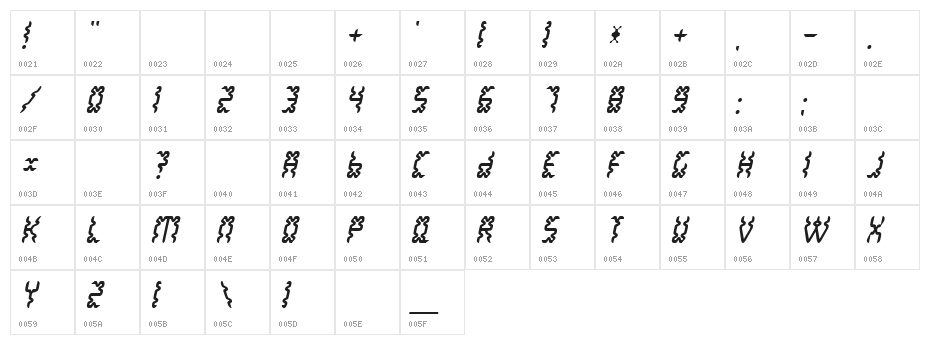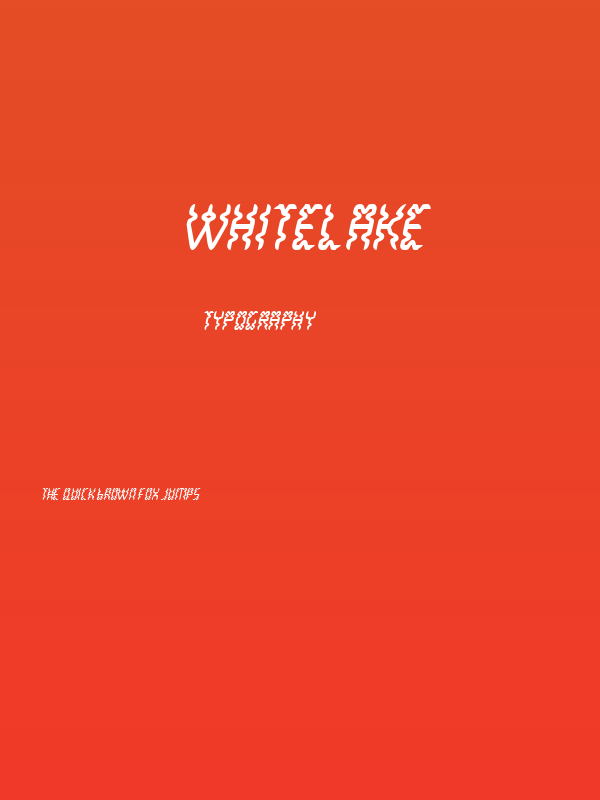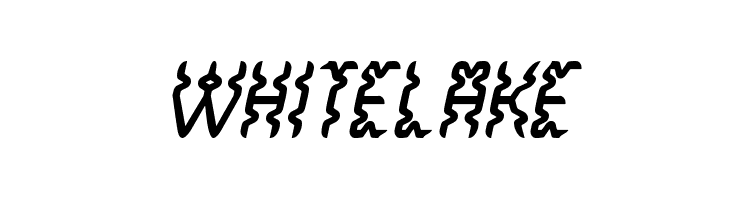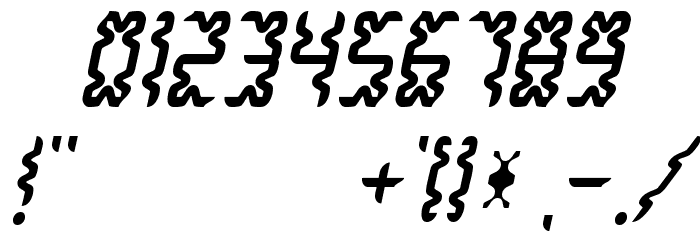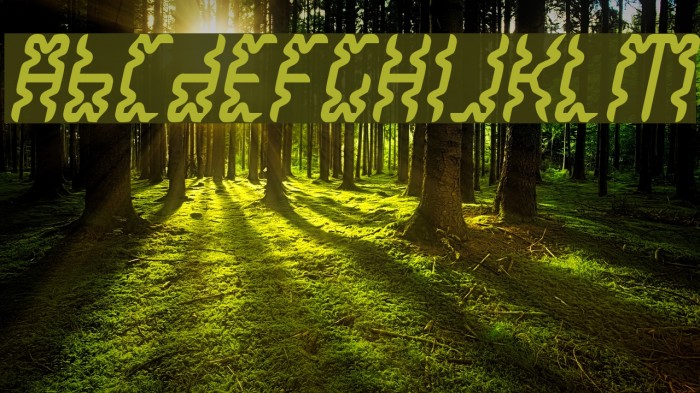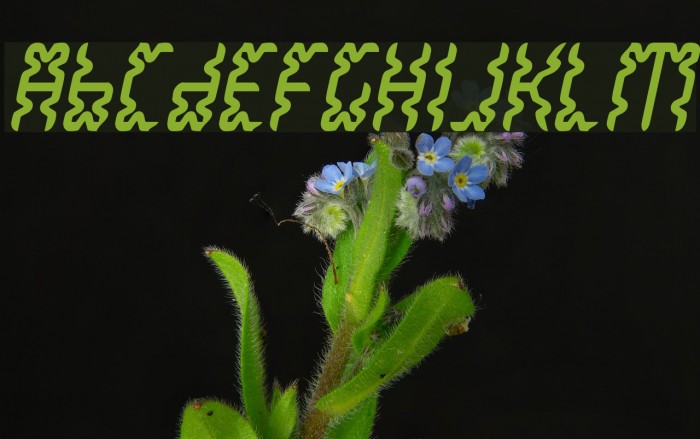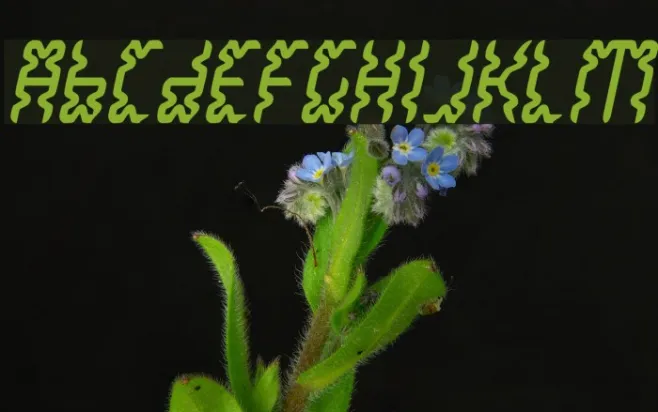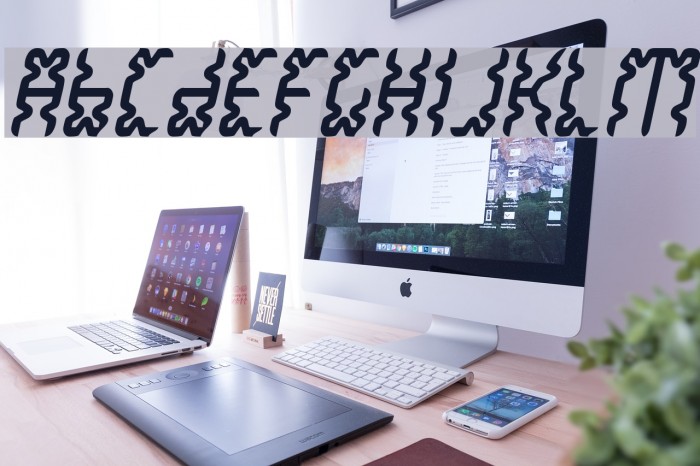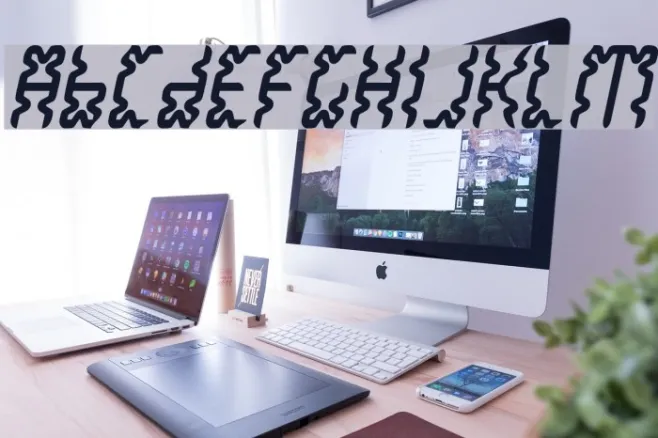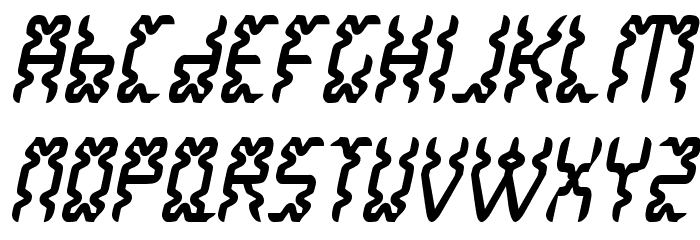
WhiteLake Font
WhiteLake Description
This font features a unique, decorative style with intricate, wavy lines that form each character. The letters have a playful yet sophisticated appearance, with a consistent flow throughout the alphabet. The uppercase and lowercase letters maintain a uniform design, creating a cohesive look. Numbers and special characters follow the same stylistic approach, ensuring visual harmony across all elements. The font's distinctiveness makes it stand out, offering a creative flair that is both modern and artistic.
| Use Case | Logos, Headlines, Artistic designs |
| Proposed Projects | Ideal for creative projects such as branding, posters, invitations, and artistic designs where a unique and eye-catching font is desired. |